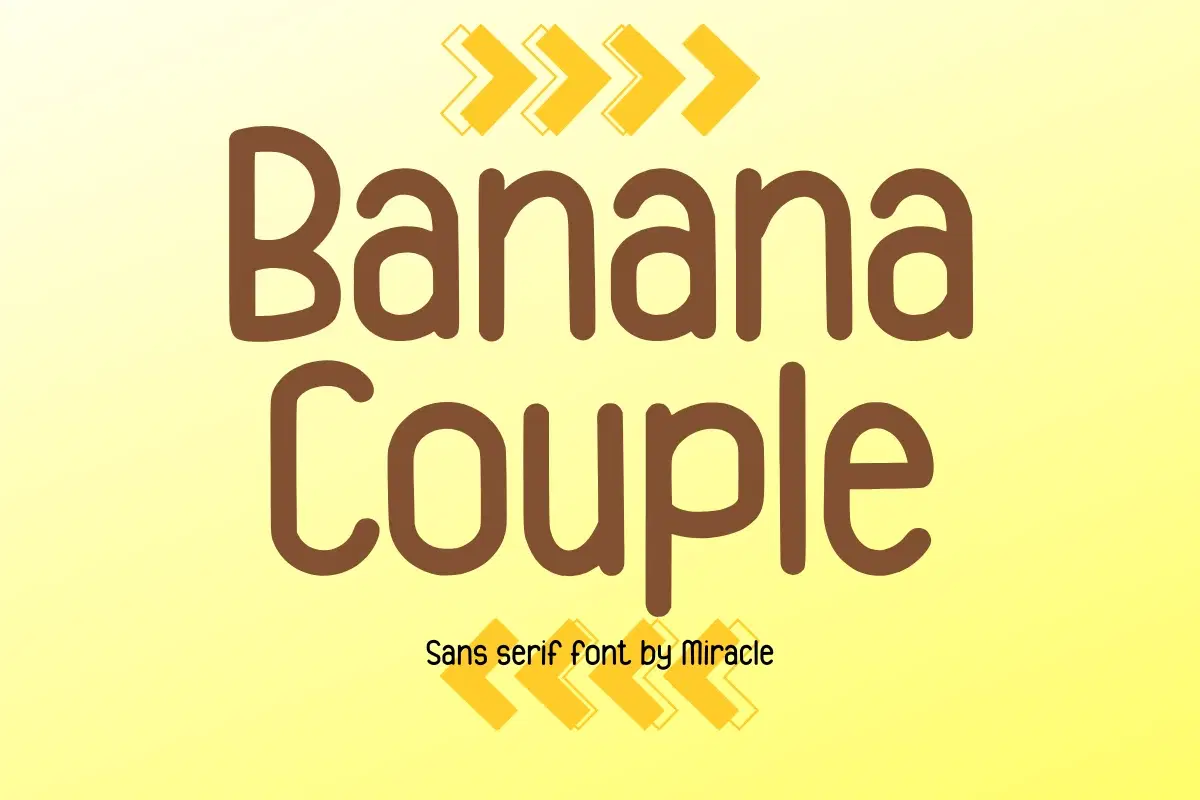
Discover the perfect blend of warmth and modern design with Banana Couple, a charming sans serif font by Miracle. Featuring clean, approachable letterforms and a gentle hand-drawn soul, this font is designed to make your projects feel welcoming and relatable. Its balanced structure and soft aesthetics make it an ideal choice for brands that want to communicate with a friendly yet professional voice.
Banana Couple is incredibly versatile, offering excellent legibility across various creative platforms. Whether you are working on organic food packaging or a lifestyle blog, this font brings a sense of comfort and "togetherness" to your typography.